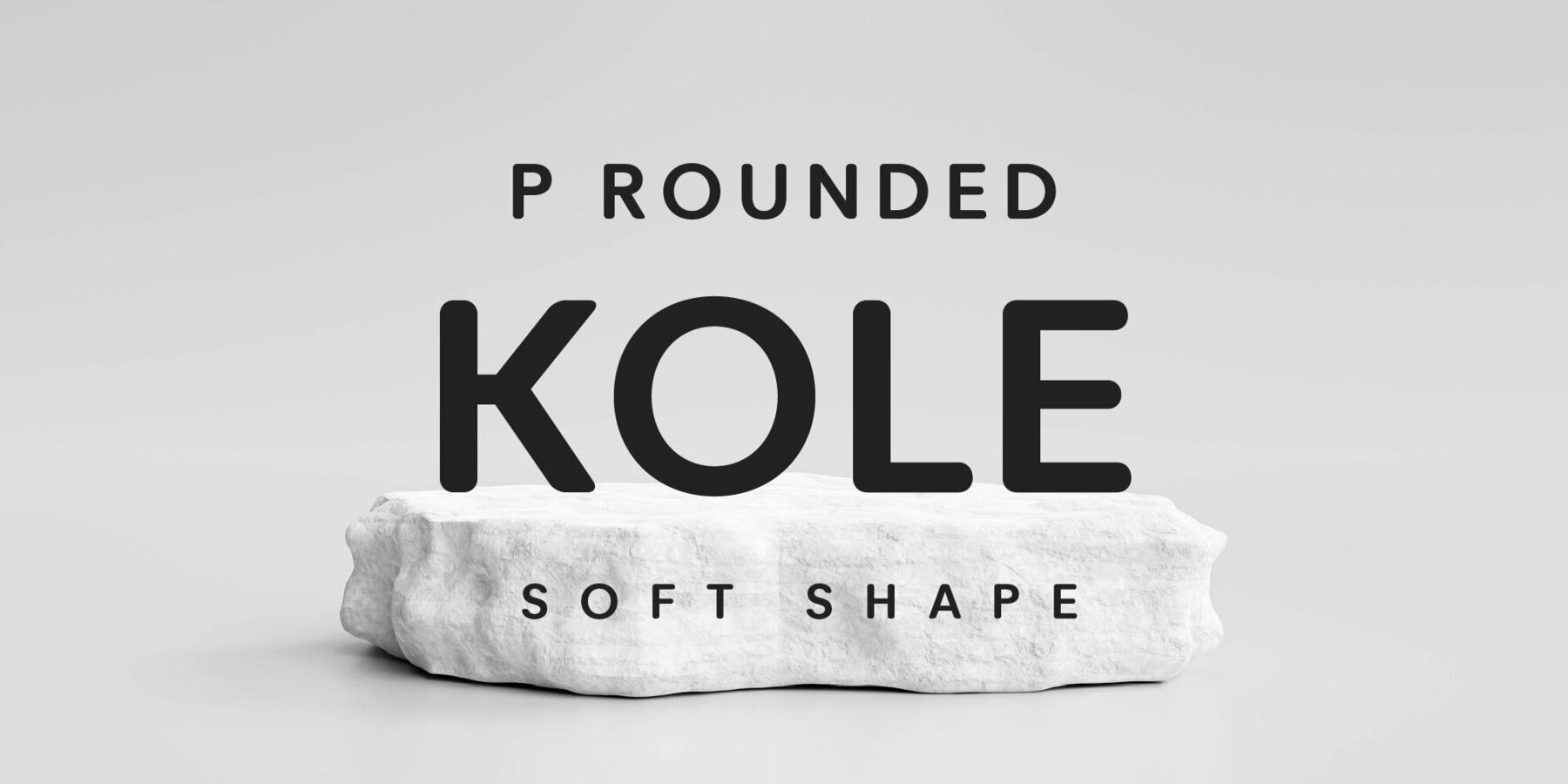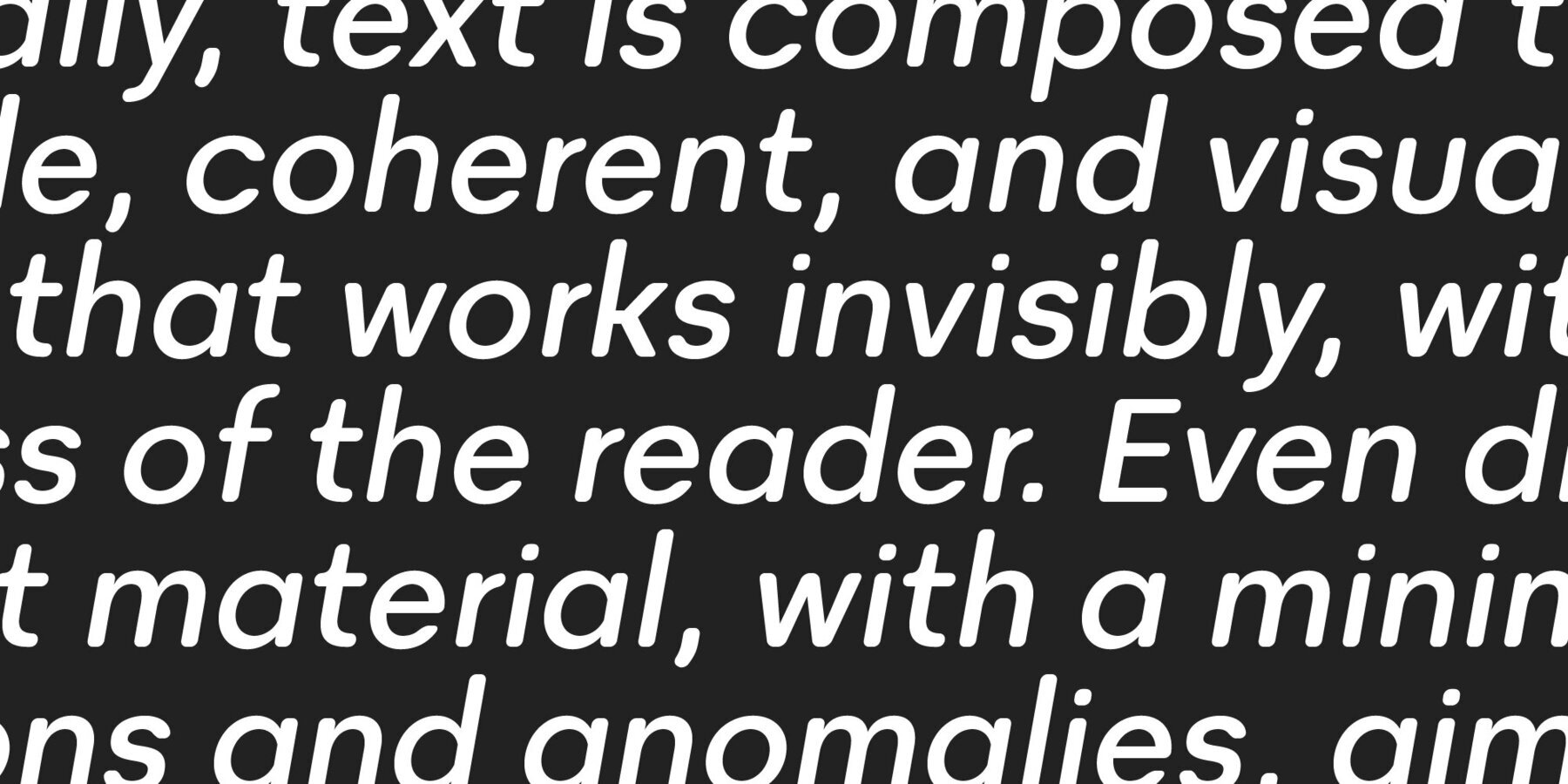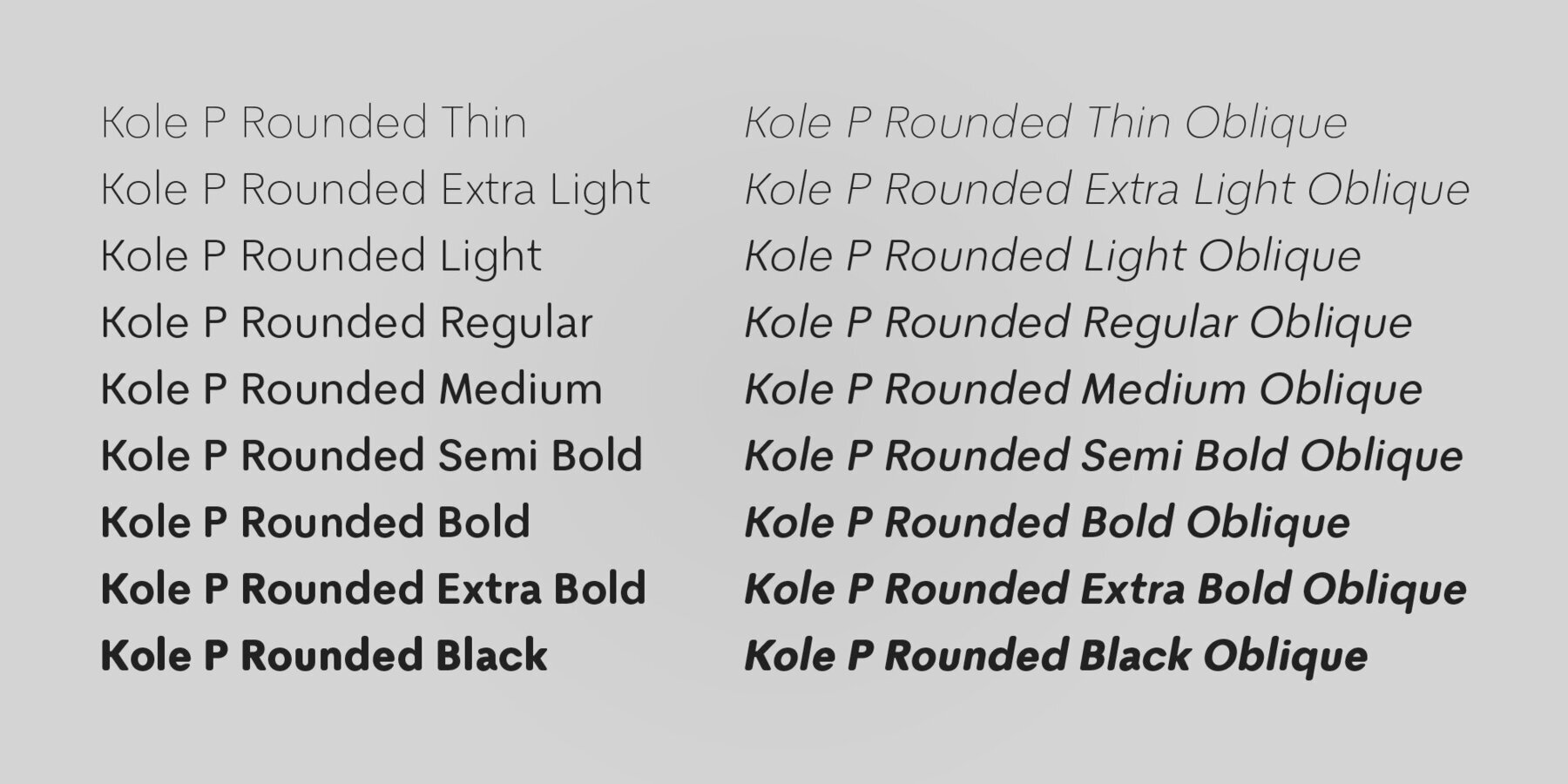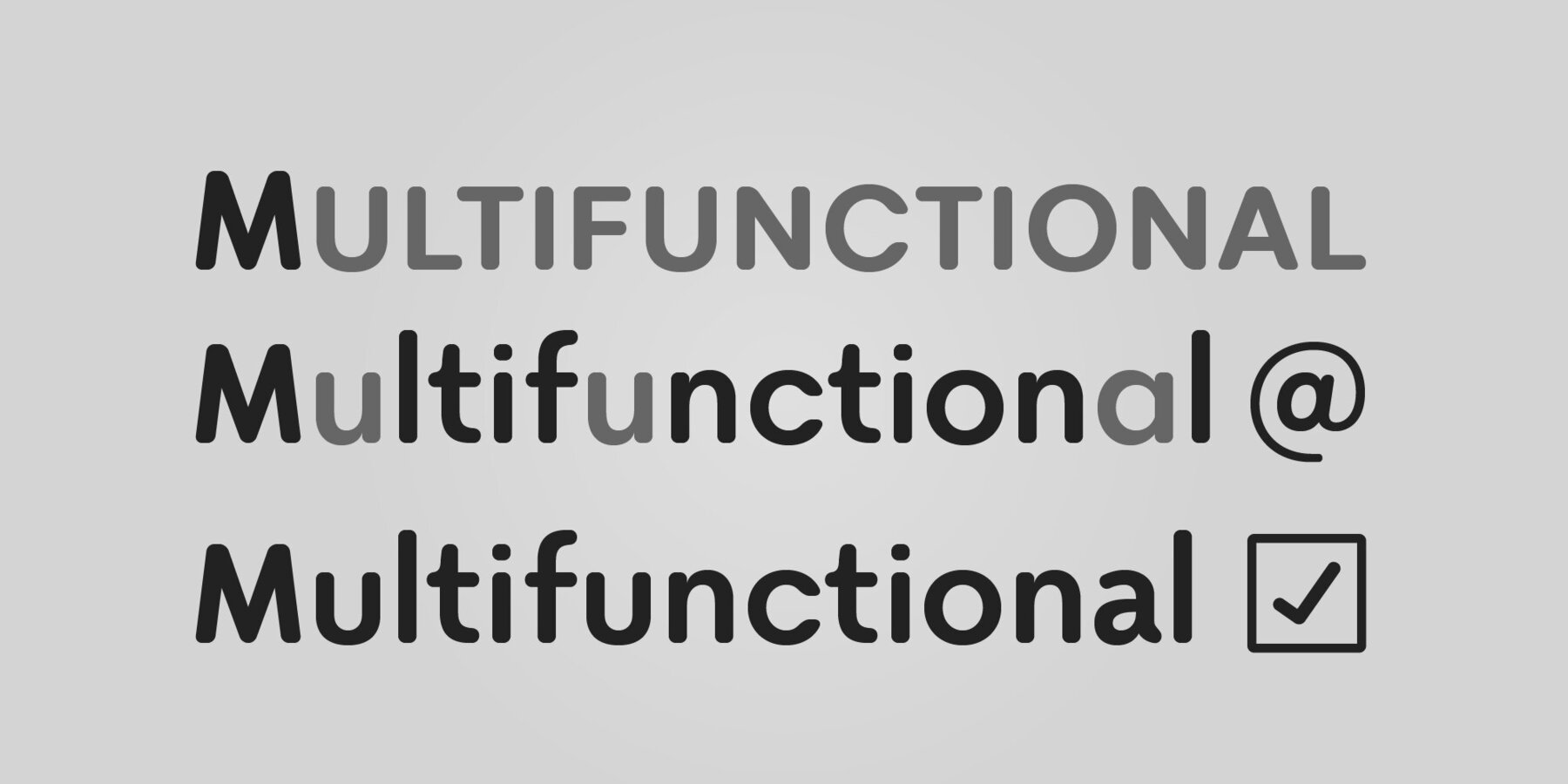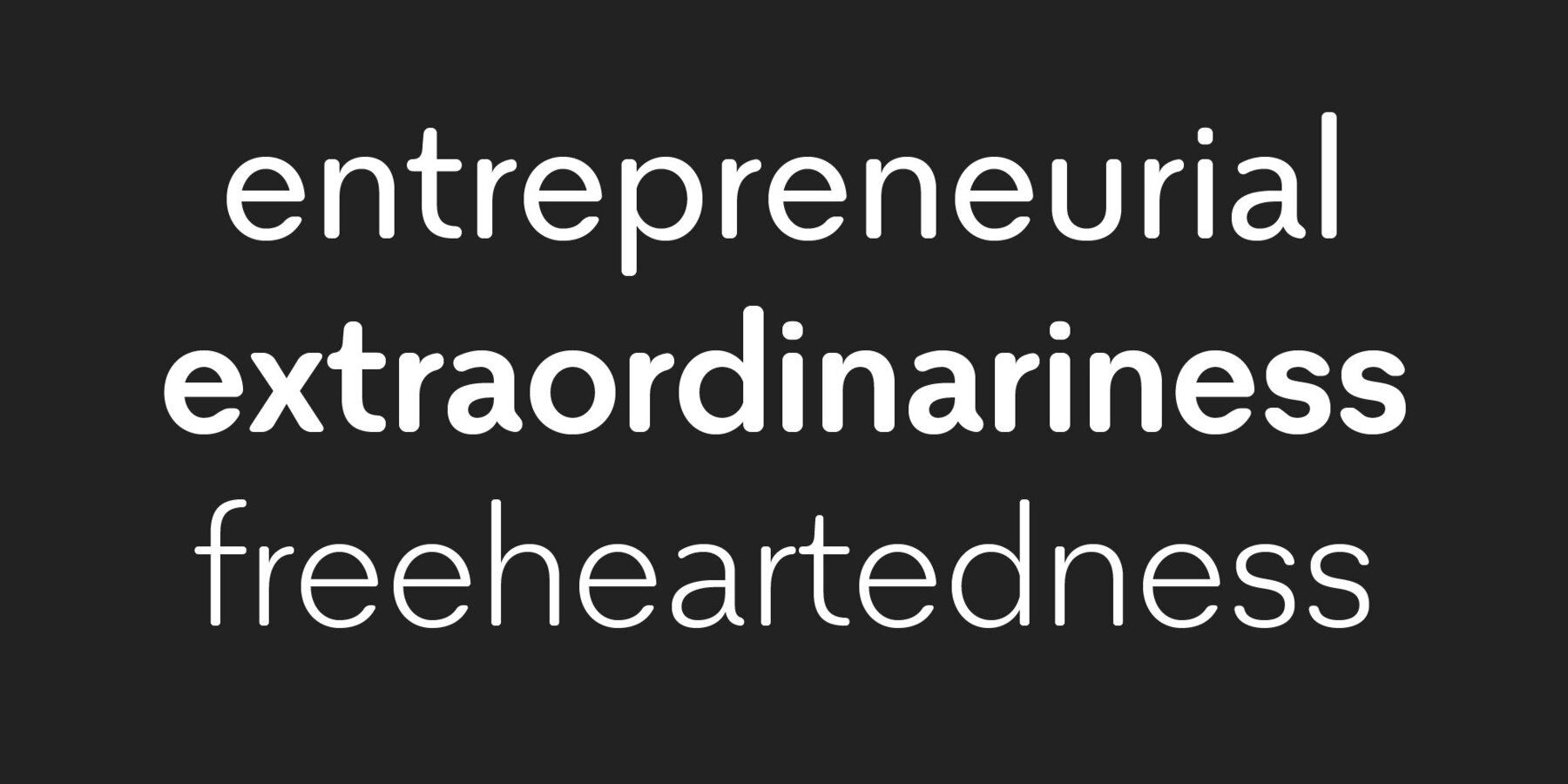
Kole P Rounded Font
Kole P Rounded is an extension of the versatile Kole font family, featuring 18 distinct weights. This typeface excels in a variety of applications, making it a perfect choice for signage, packaging, brand identity, software, editorial layouts, and both web and screen design. Its rounded edges bring a unique soft touch, making headlines and logotypes stand out with a friendly yet professional appearance.
Designed with precision for digital and print media, Kole P Rounded offers ample versatility for creative projects. The comprehensive weight range allows designers to experiment with different visual weights, ensuring coherence across different design elements. Whether you're developing a bold headline or a subtle logotype, this font family provides the flexibility and distinctive style needed for effective design solutions.
Savchuk Mykola began his career as a graphic designer. Over time, he had a desire to create a font that would reflect his view of typography. ‘They say that all ingenious things are simple, although unique. In my future projects, I want to reflect simplicity on the one hand and uniqueness on the other, providi...